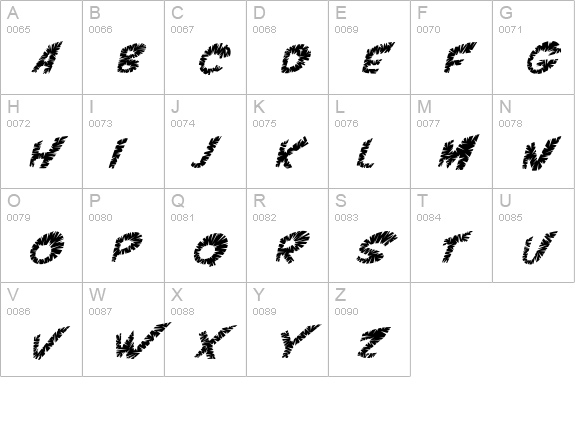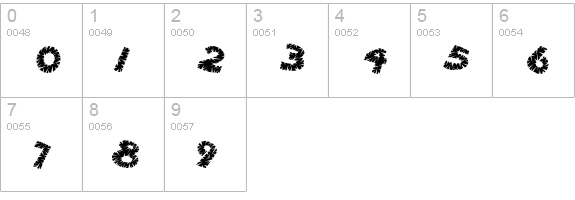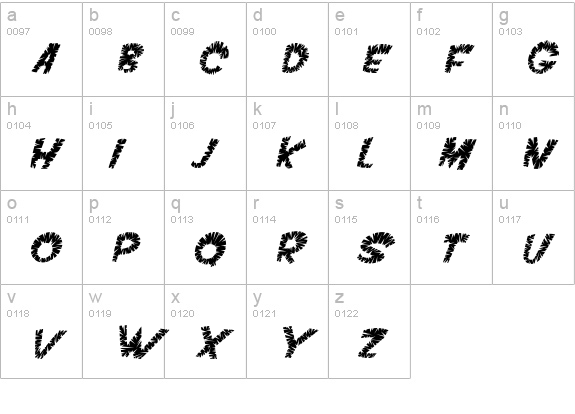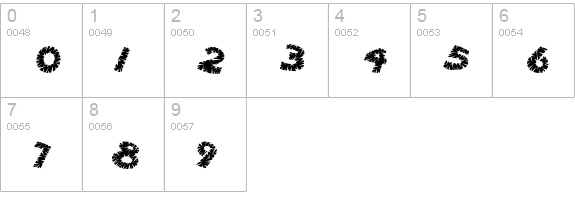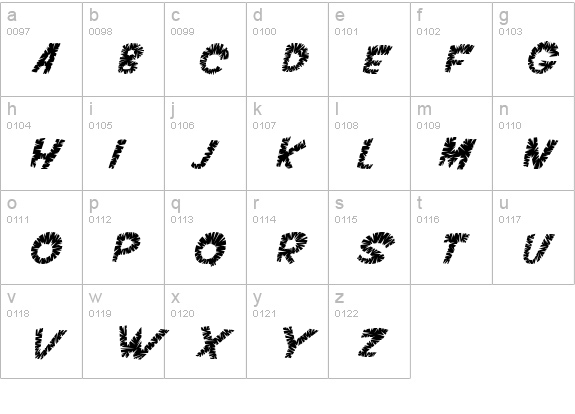
VTC ScreamItLoudSliced Italic Font Details
VTC ScreamItLoudSliced Italic is a distinctive, italic variant in the VTC typeface family \xE2\x80\x94 well suited to design and typography projects.
Introducing the captivating and dynamic VTC ScreamItLoudSliced Italic font, a true testament to the power of boldness and expression. This one-of-a-kind typeface commands attention with its sharp edges and sliced design, adding an edgy and modern flair to any project. With its italicized style, VTC ScreamItLoudSliced Italic effortlessly brings a sense of movement and energy to your words, creating a visually striking impact that is hard to ignore. Whether used for headlines, logos, or branding, this font will leave a lasting impression on your audience. Not only does VTC ScreamItLoudSliced Italic possess a captivating aesthetic, but it also offers incredible versatility. From music album covers to urban fashion campaigns, this font effortlessly encapsulates the essence of modernity and urban culture. Its unique character set ensures that your message is conveyed with the utmost clarity and impact. And the best part? VTC ScreamItLoudSliced Italic is freely available to download at FontsMarket.com. This means that you can unleash the power of this font in your designs without any constraints. Experience the freedom of creativity as you explore the endless possibilities that this font has to offer. So, if you're searching for a font that screams boldness, individuality, and modernity, look no further than VTC ScreamItLoudSliced Italic. Download it today from FontsMarket.com and set your designs apart with its captivating presence. Let your words resonate, let them scream loud and clear with this exceptional typeface.